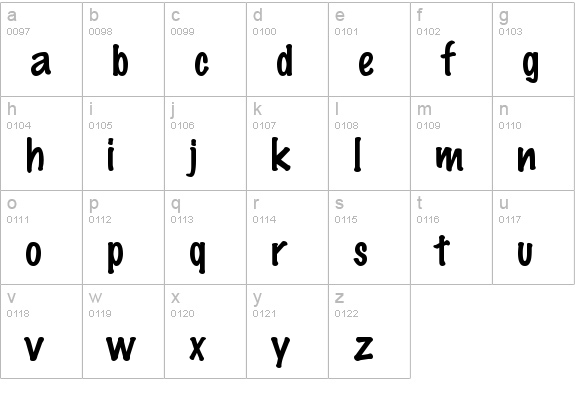
MarkerFelt Normal Font Details
MarkerFelt Normal is the standard, neutral variant in the MarkerFelt typeface family \xE2\x80\x94 well suited to general body text, paragraphs, and standard typographic work.
MarkerFelt Normal is a charming and playful font that exudes a sense of creativity and whimsy. With its unique hand-drawn style, this font is perfect for adding a touch of personality to any project. The uneven strokes and slightly slanted letters give it a handwritten feel, adding a human touch to your designs. This font is incredibly versatile and can be used for a wide range of purposes, from posters and flyers to social media graphics and logo designs. Its bold and legible characters make it easy to read, even at smaller sizes. Whether you want to create eye-catching headlines or add a fun element to your body text, MarkerFelt Normal is sure to make a lasting impression. And the best part? MarkerFelt Normal is available for free! You can download this fantastic font at FontsMarket.com, a reliable source for high-quality fonts. By offering MarkerFelt Normal for free, it allows designers and creators to access this delightful font without any financial constraints. So why wait? Explore the world of MarkerFelt Normal and let your creativity flow. Download this unique font today at FontsMarket.com and add a touch of whimsy to your next design project.